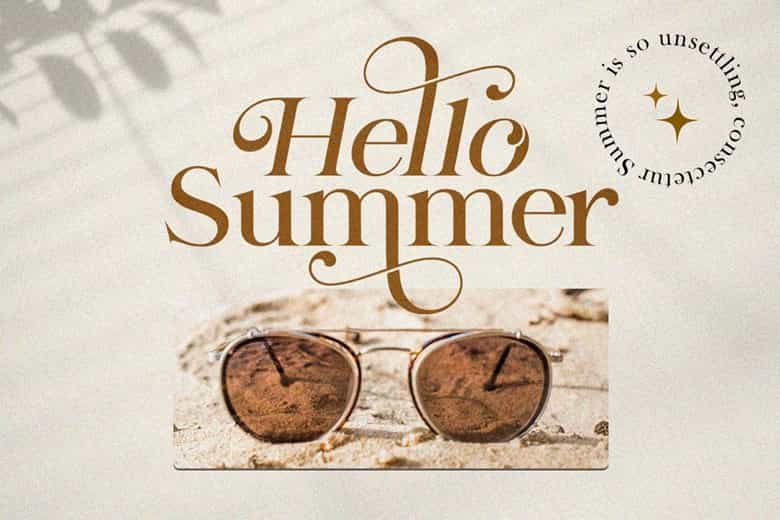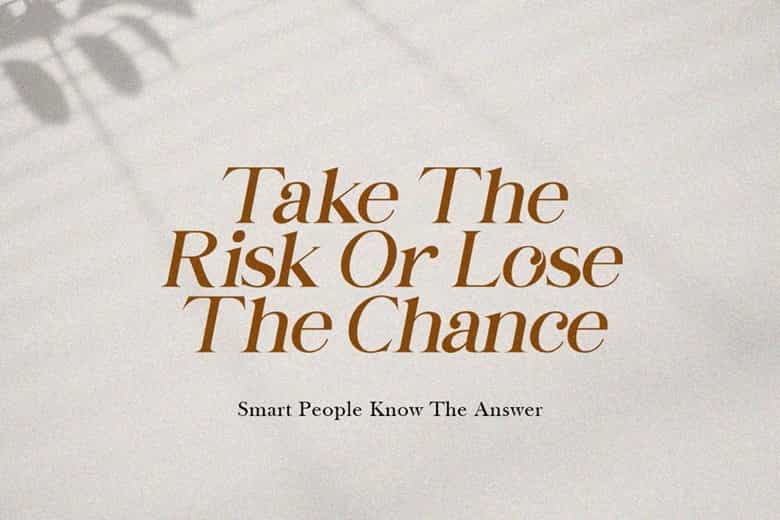
Goldink Brittey is a new modern serif typeface that gives a romantic feel to any curve that has smooth edges. This typeface has been designed with such great precision to offer only the best that one would expect to get, This is a font type that is provided with both upper case as well as lower case letters, punctuation signs, symbols, numbers and an option of the alternative versions of certain letters, The font also supports multiple languages. Find beauty in the world today with this font.